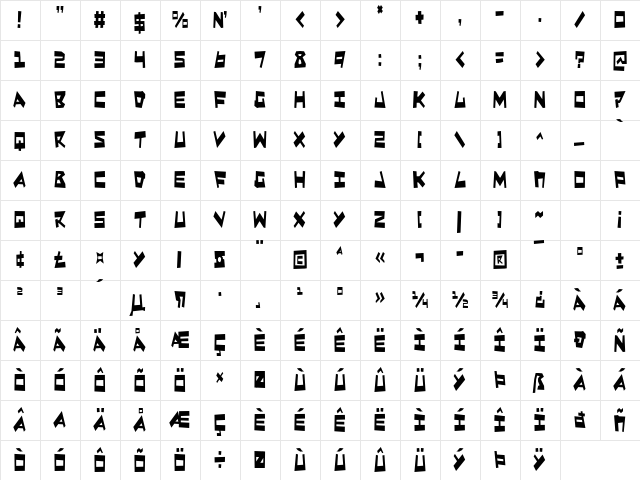
Quake & Shake Condensed Condensed
Design Context for Quake & Shake Condensed Typeface
Quake & Shake Condensed is a composed and adaptable typeface that performs quietly and consistently across a wide range of design contexts. The condensed width makes it efficient for tight spaces without sacrificing legibility.